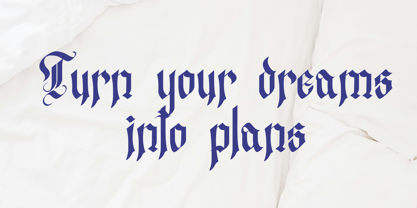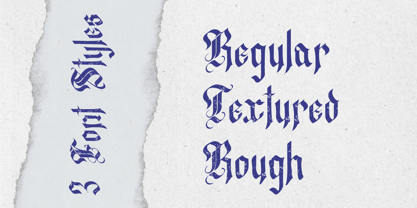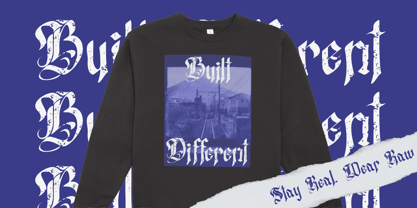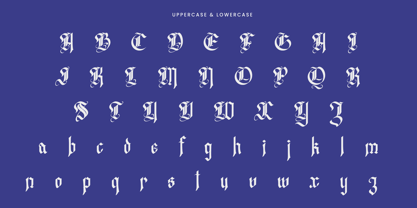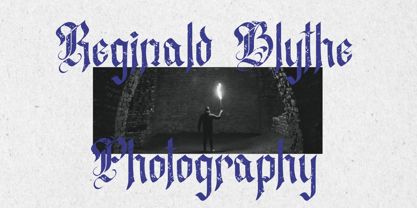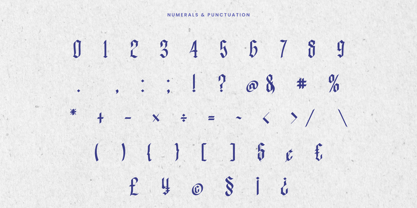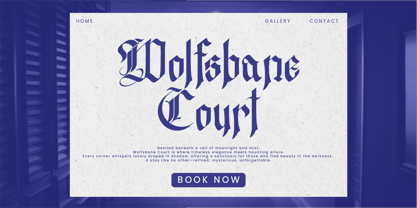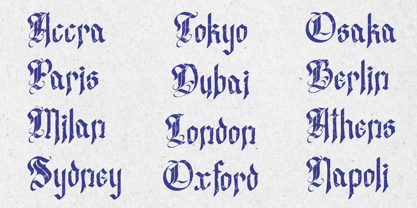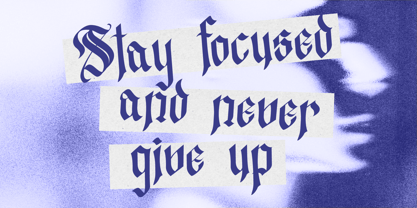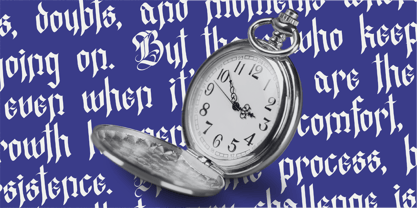
Westend Ridge
The Westend Ridge Font Family was designed by Randi Irvan and published by Rvandtype. Westend Ridge contains 3 styles and family package options.
Westend Ridge is a authentic blackletter font inspired by the elegance of classic typography and the timeless charm of Old English design. With its sharp details, strong character, and vintage appeal, this typeface brings a historical essence into modern design.
Each letter is carefully crafted to echo the spirit of medieval scripts, traditional signage, and vintage print layouts — while still feeling fresh and contemporary. Westend Ridge perfectly balances ornate textures with readability, making it ideal for designers who want to make a bold visual statement.
This font works beautifully across various creative projects: from gothic band posters, liquor labels, barbershop branding, editorial headlines, vintage logos, to apparel designs and more.
Why Choose Westend Ridge?
Classic Old English Inspiration
Evokes a historic, noble atmosphere with strong Old English roots.
Vintage Meets Modern Aesthetic
Seamlessly blends traditional blackletter styling with a modern edge.
Versatile for Many Uses
Suitable for logos, labels, music covers, packaging, merchandise, and editorial work.
Detail-Oriented Craftsmanship
Every stroke and curve is designed with precision to ensure a premium and polished result.
• 3 Font Styles: Regular, Textured, & Textured Rough
• Uppercase & Lowercase Letters
Westend Ridge isn’t just a font — it’s a typographic experience. Perfect for creators who seek a touch of heritage and a powerful presence in their designs.